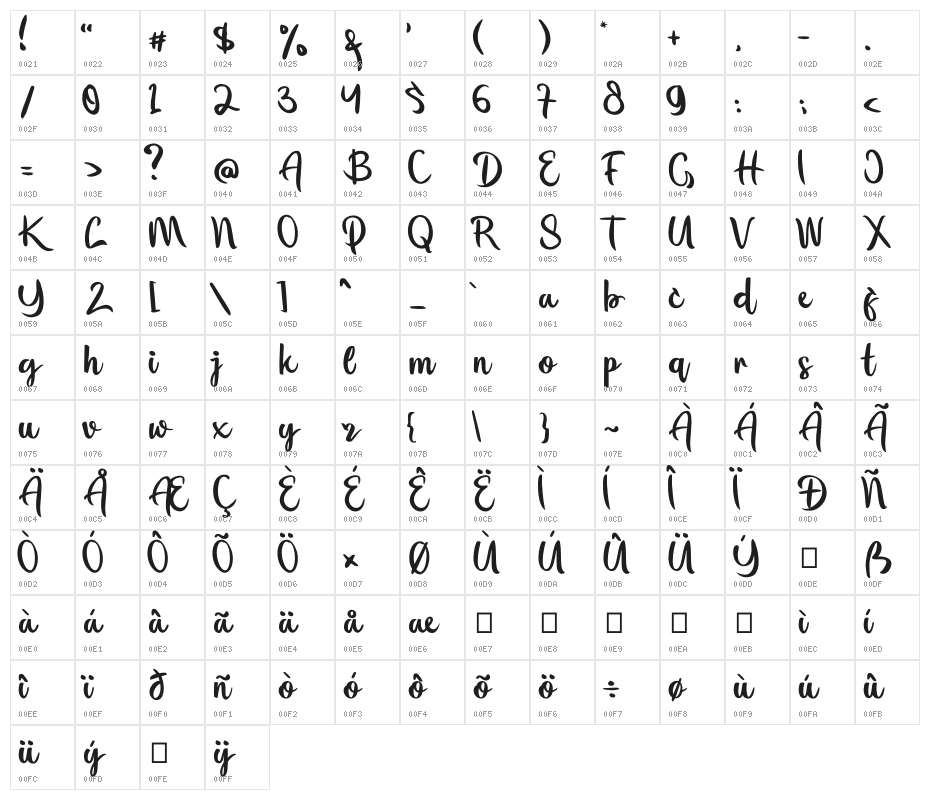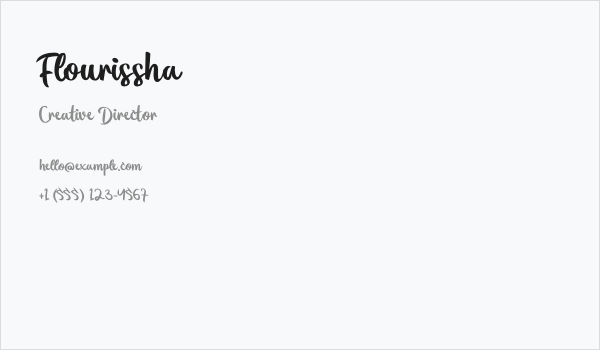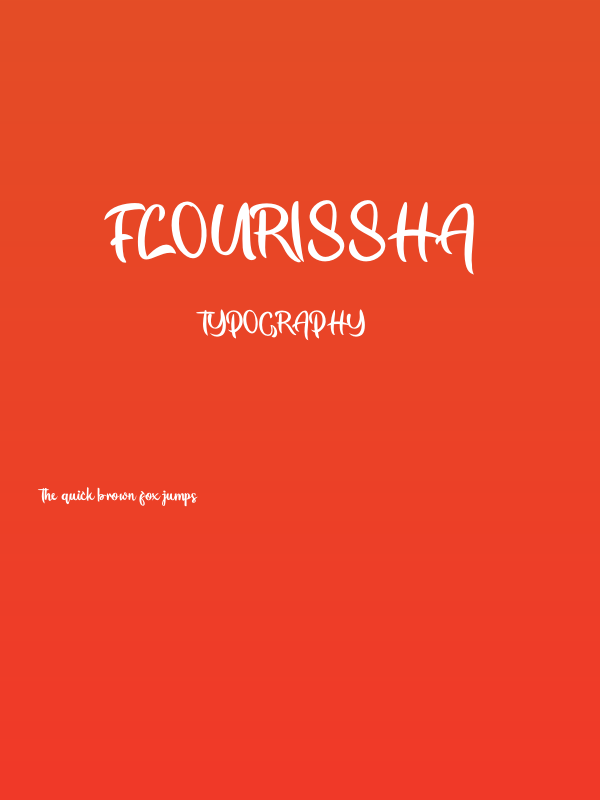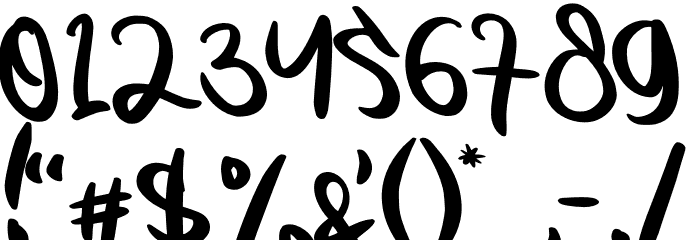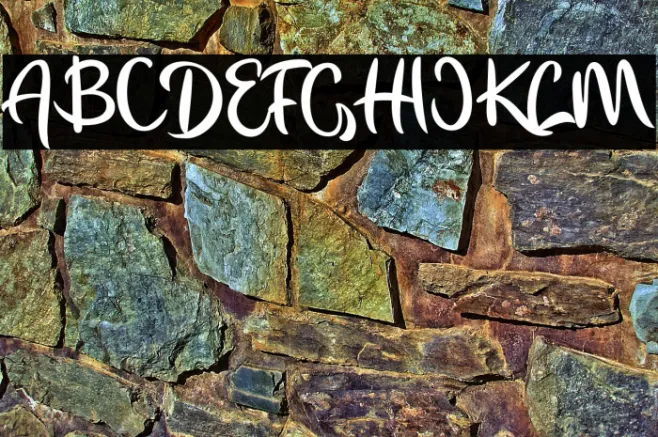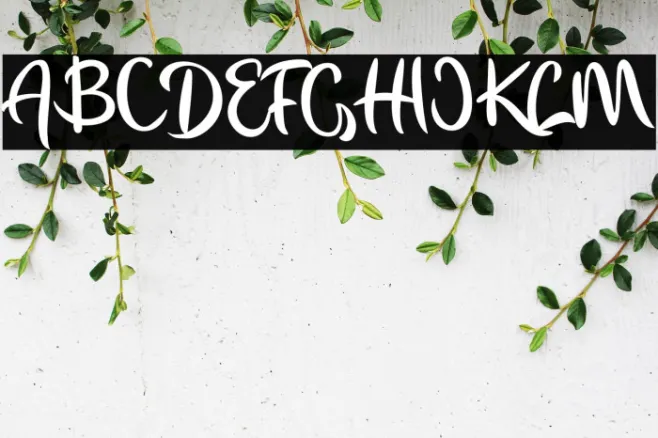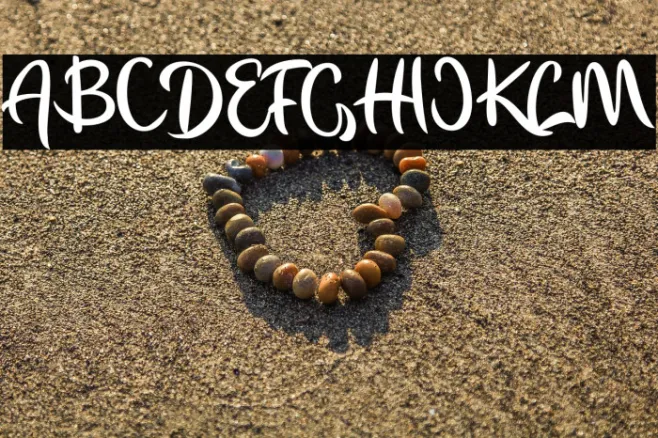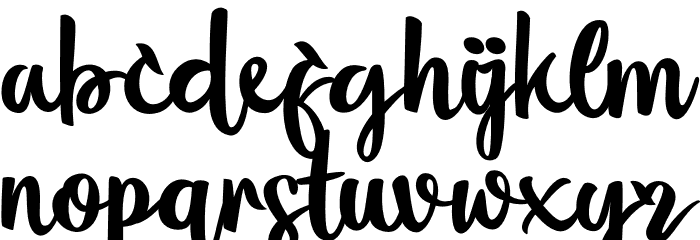
Flourissha Font
Flourissha Description
This font exudes a lively and energetic vibe with its bold, flowing script style. The characters are connected in a fluid manner, reminiscent of elegant handwriting, yet maintain a modern flair. The uppercase letters are tall and slightly slanted, while the lowercase letters are rounded and consistent in height, providing a harmonious balance. The numerals and special characters follow the same cursive style, ensuring uniformity across all elements. This font is perfect for adding a personal touch to any design, making it ideal for creative projects that require a touch of sophistication and flair.